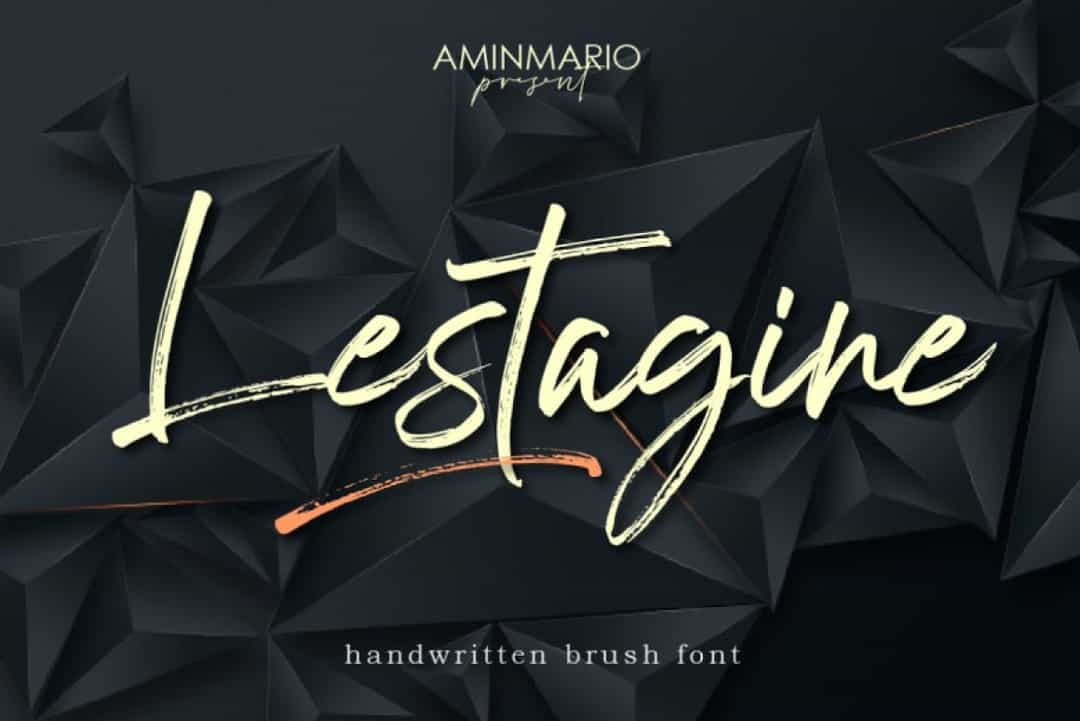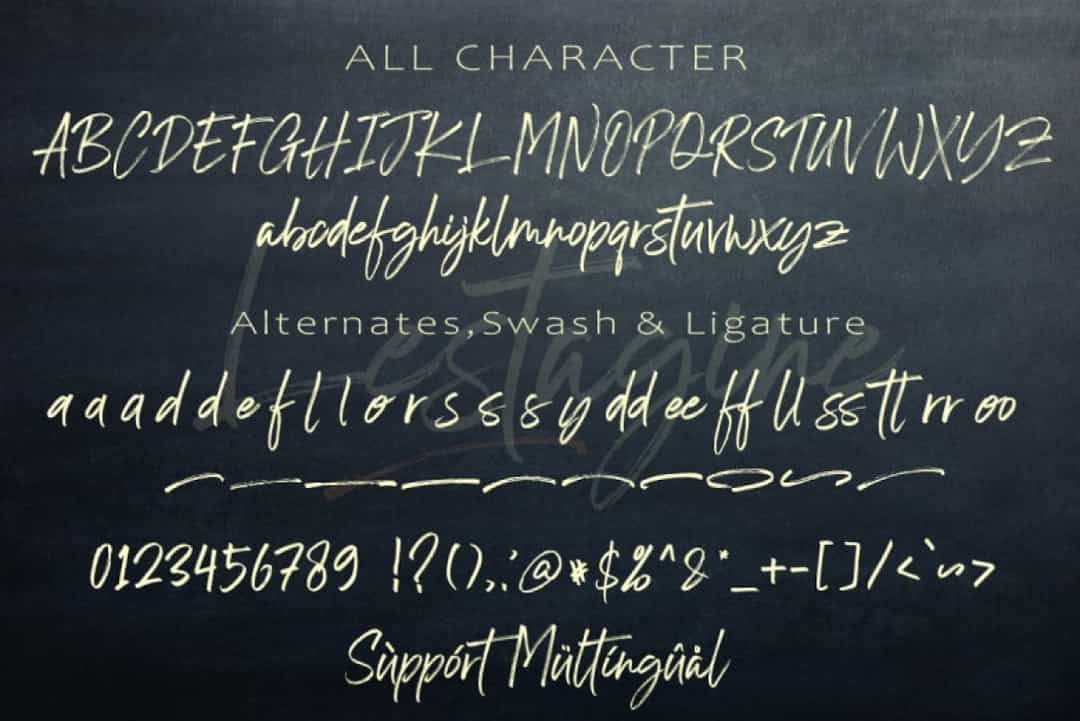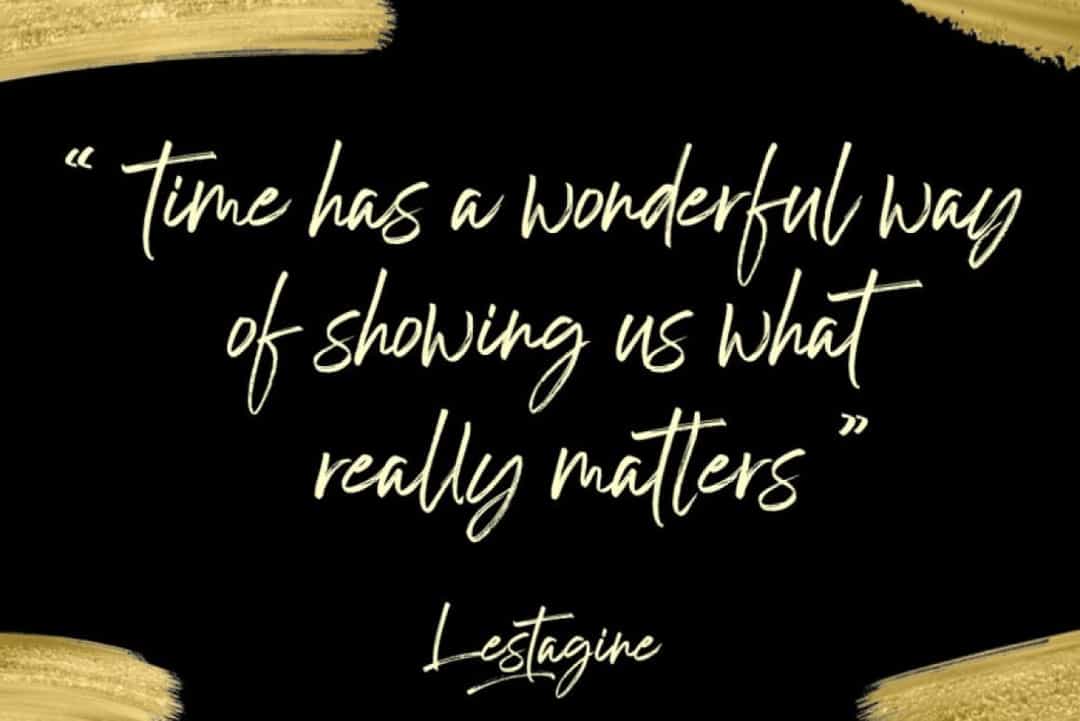
Lestagine is an extraordinary handwritten brush typeface created using a brush pen, offering striking curvatures of thin and thick curvatures. Created and vectorized from transfering paper onto computer. I aimed for an authentic brush typeface retaining its texture and imperfections exactly as they are, yet ideal for any task that calls for handwritten expression.